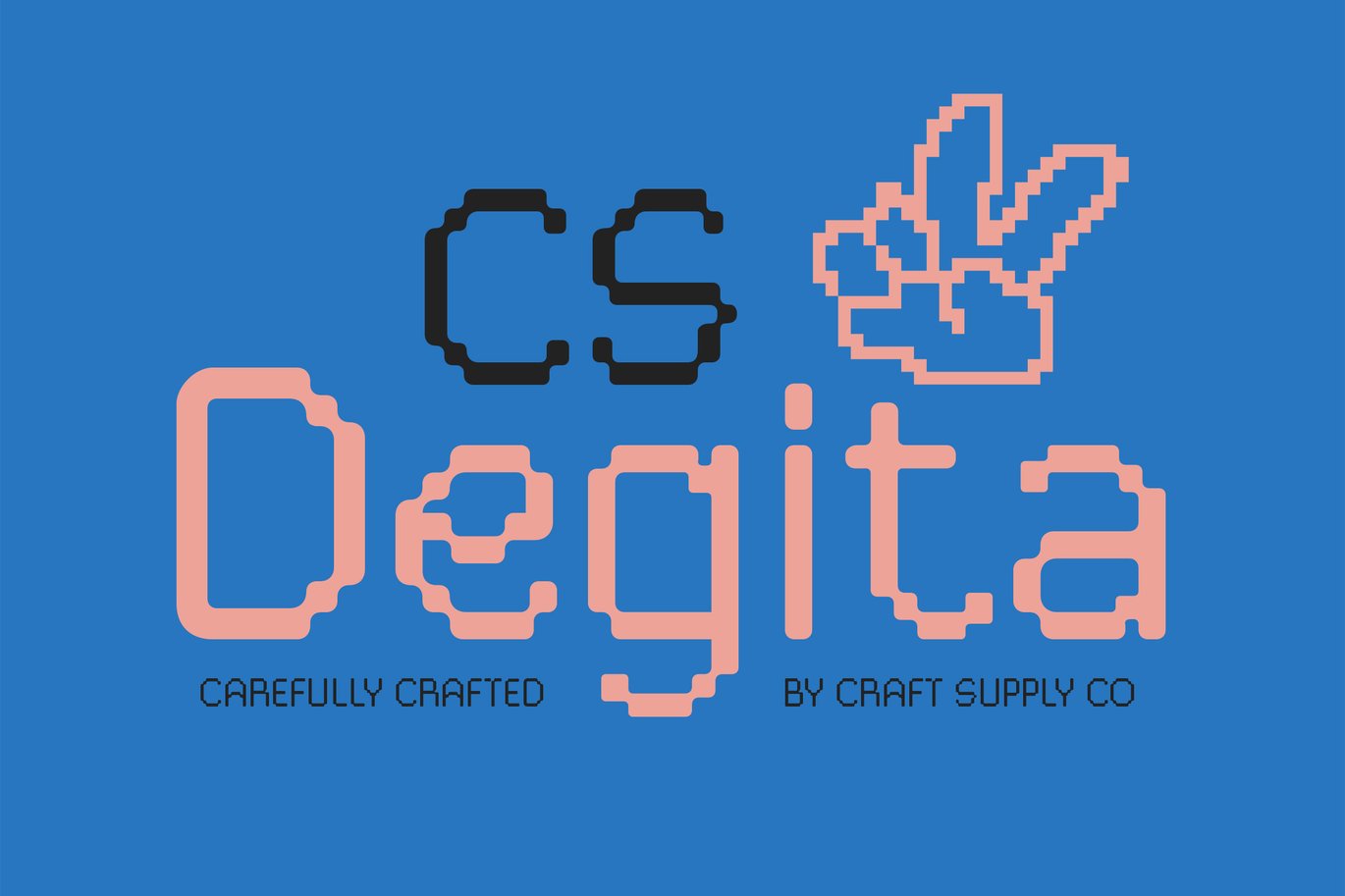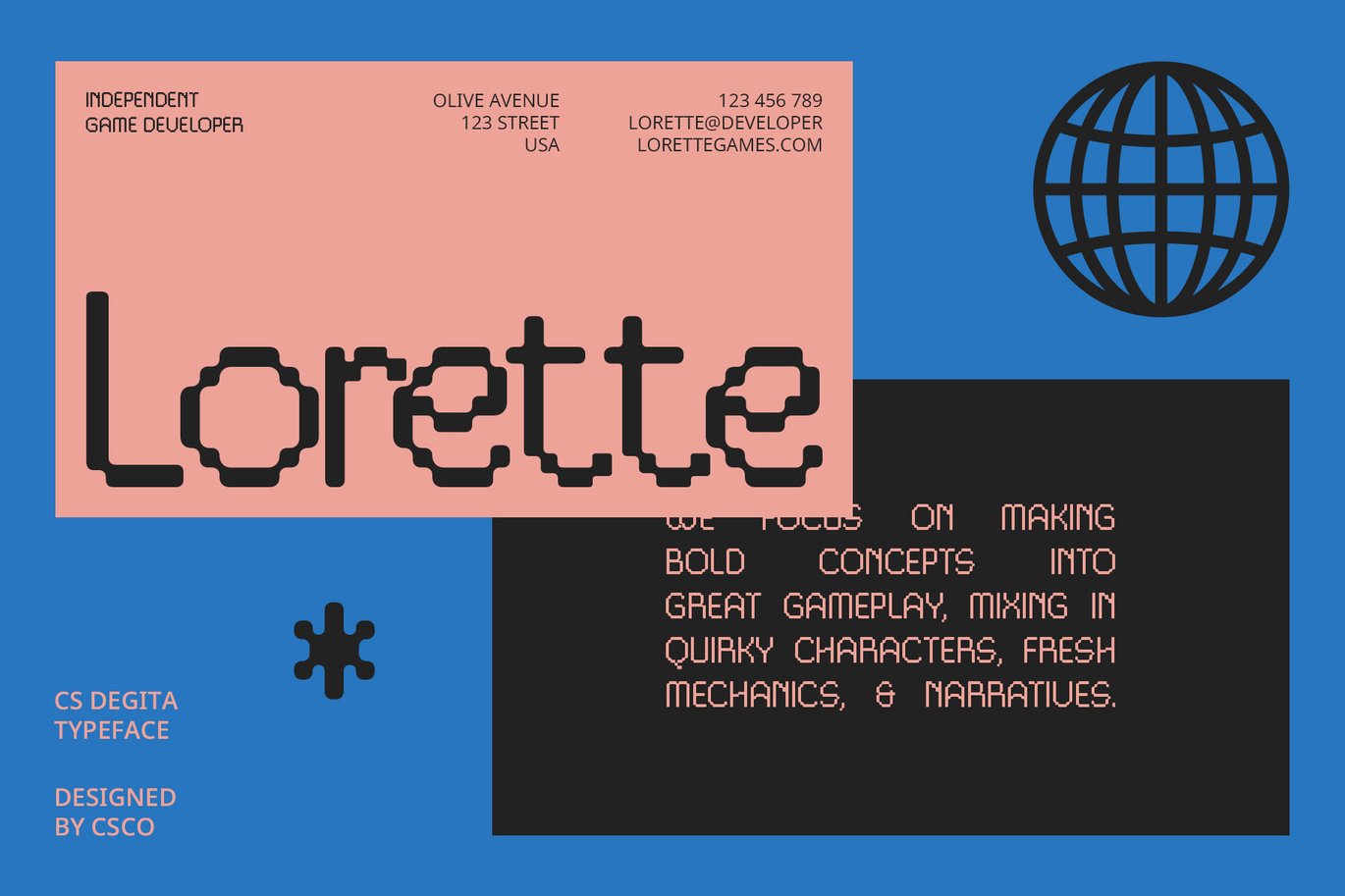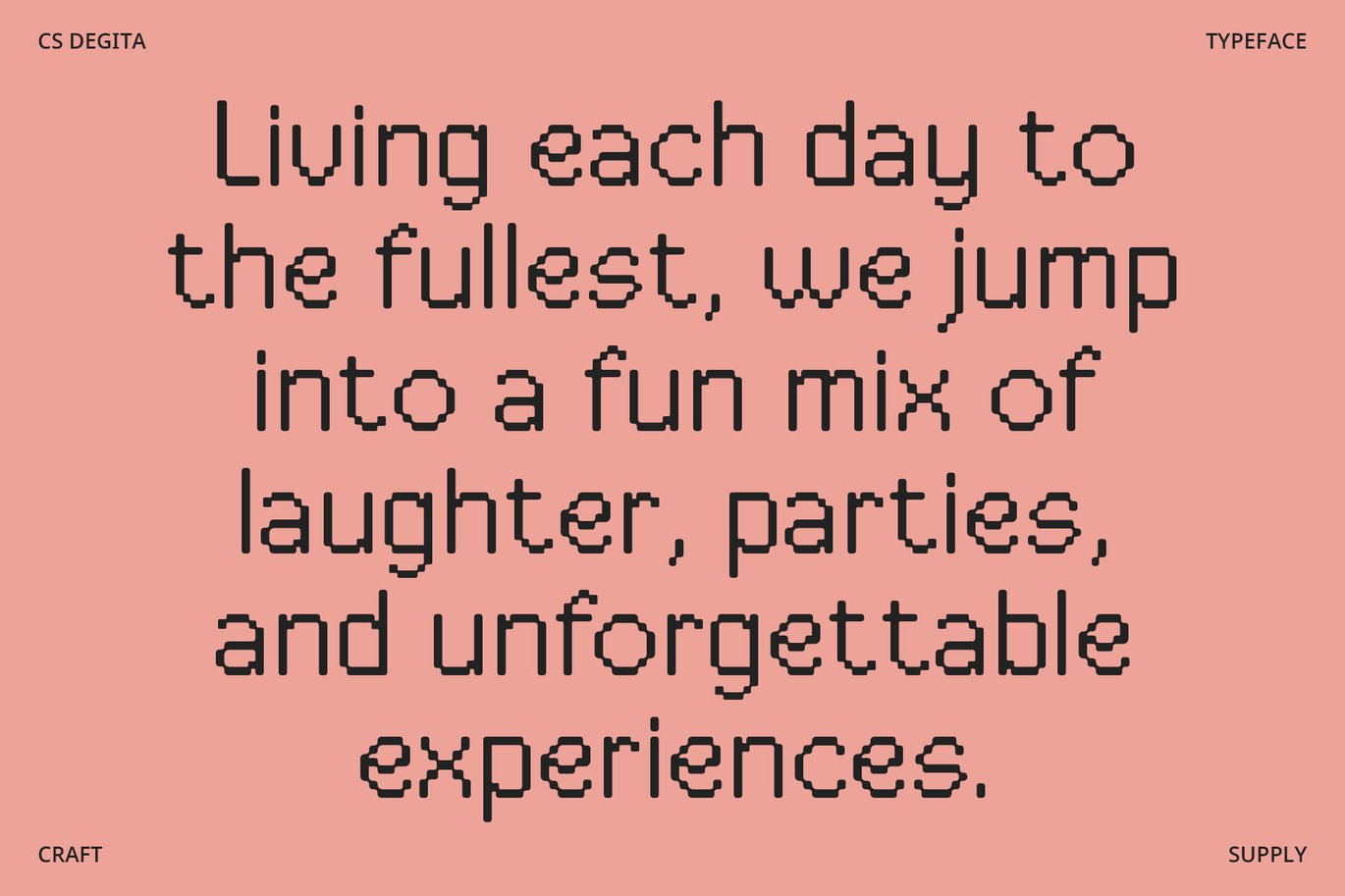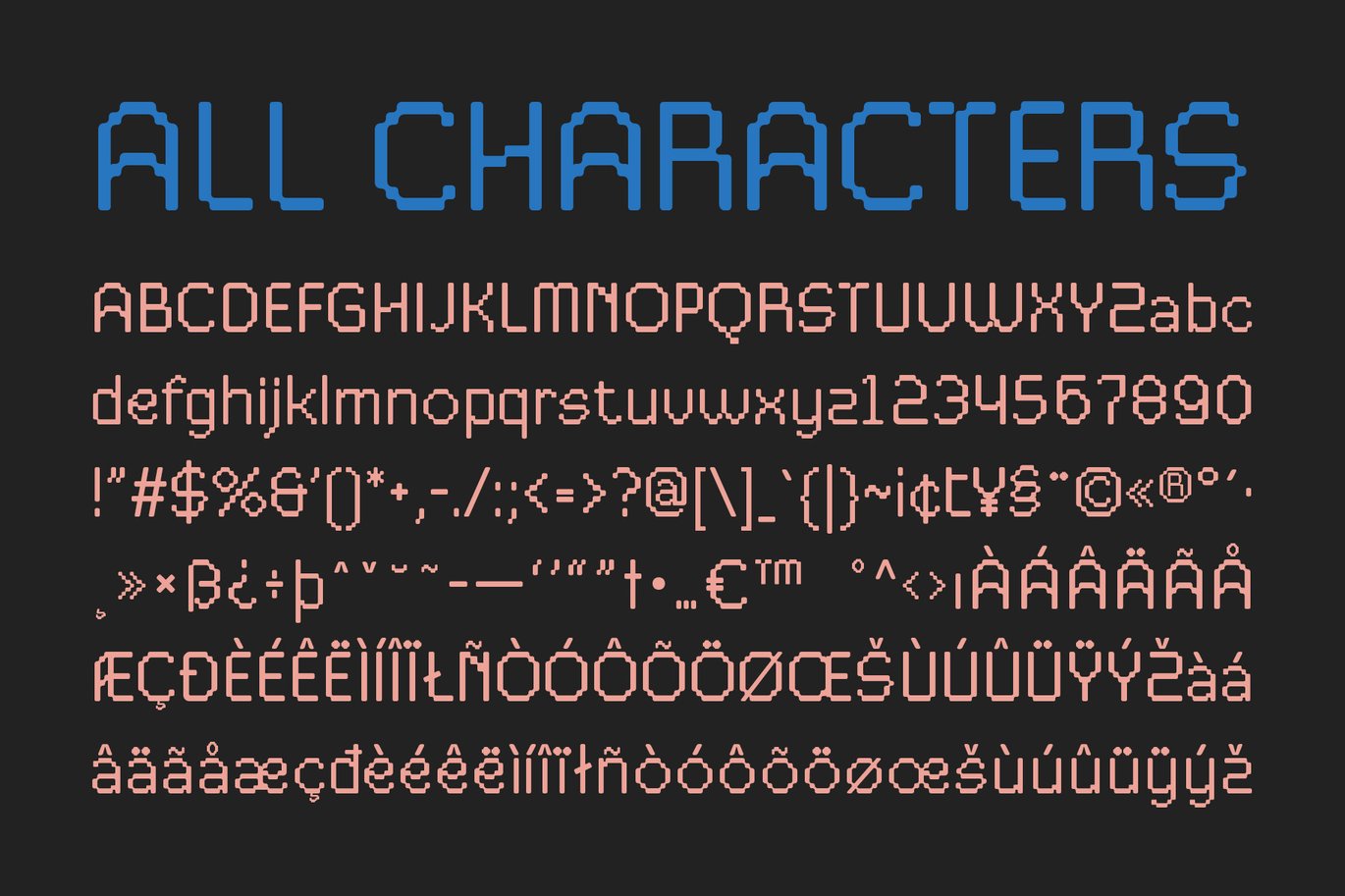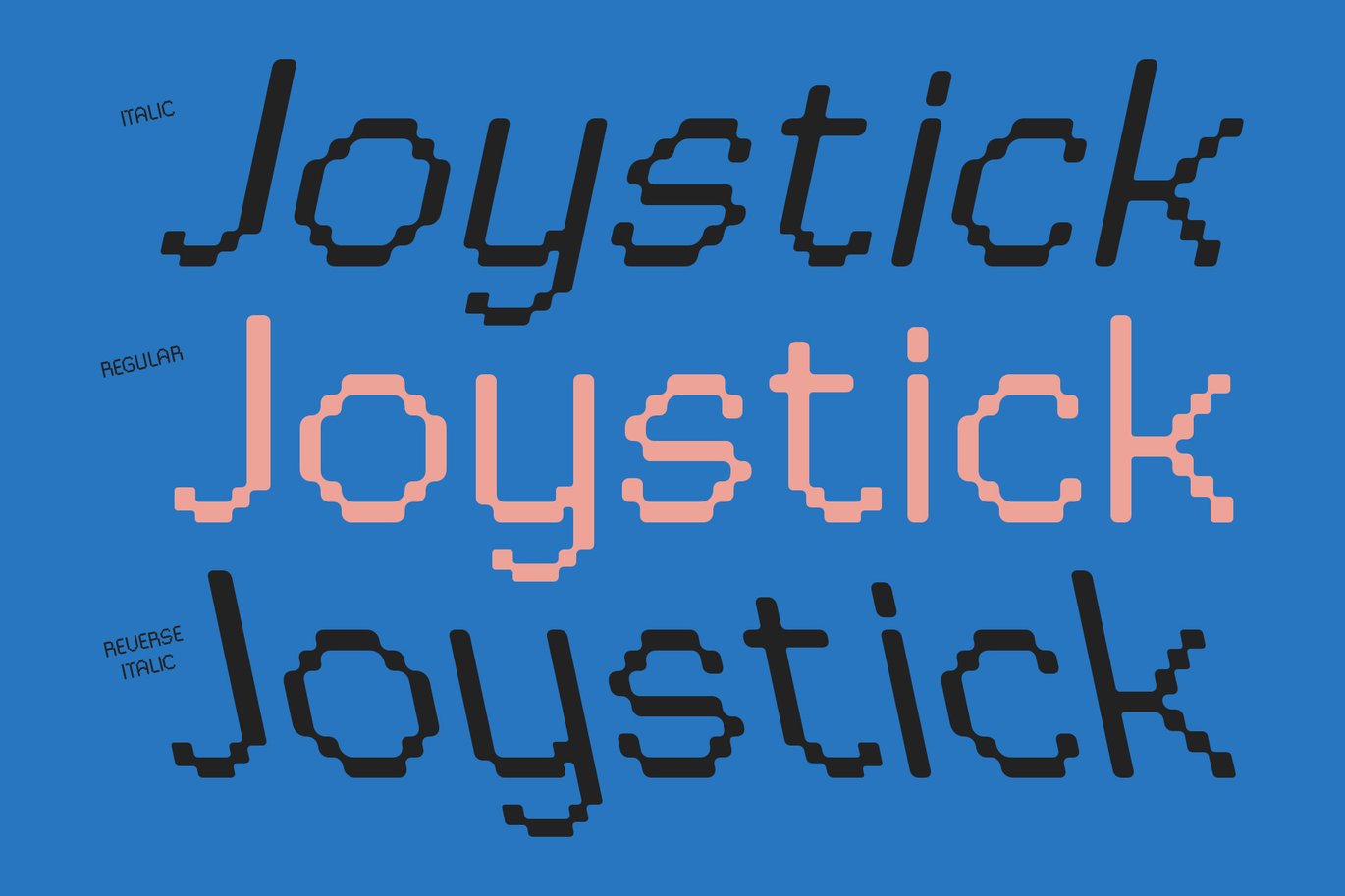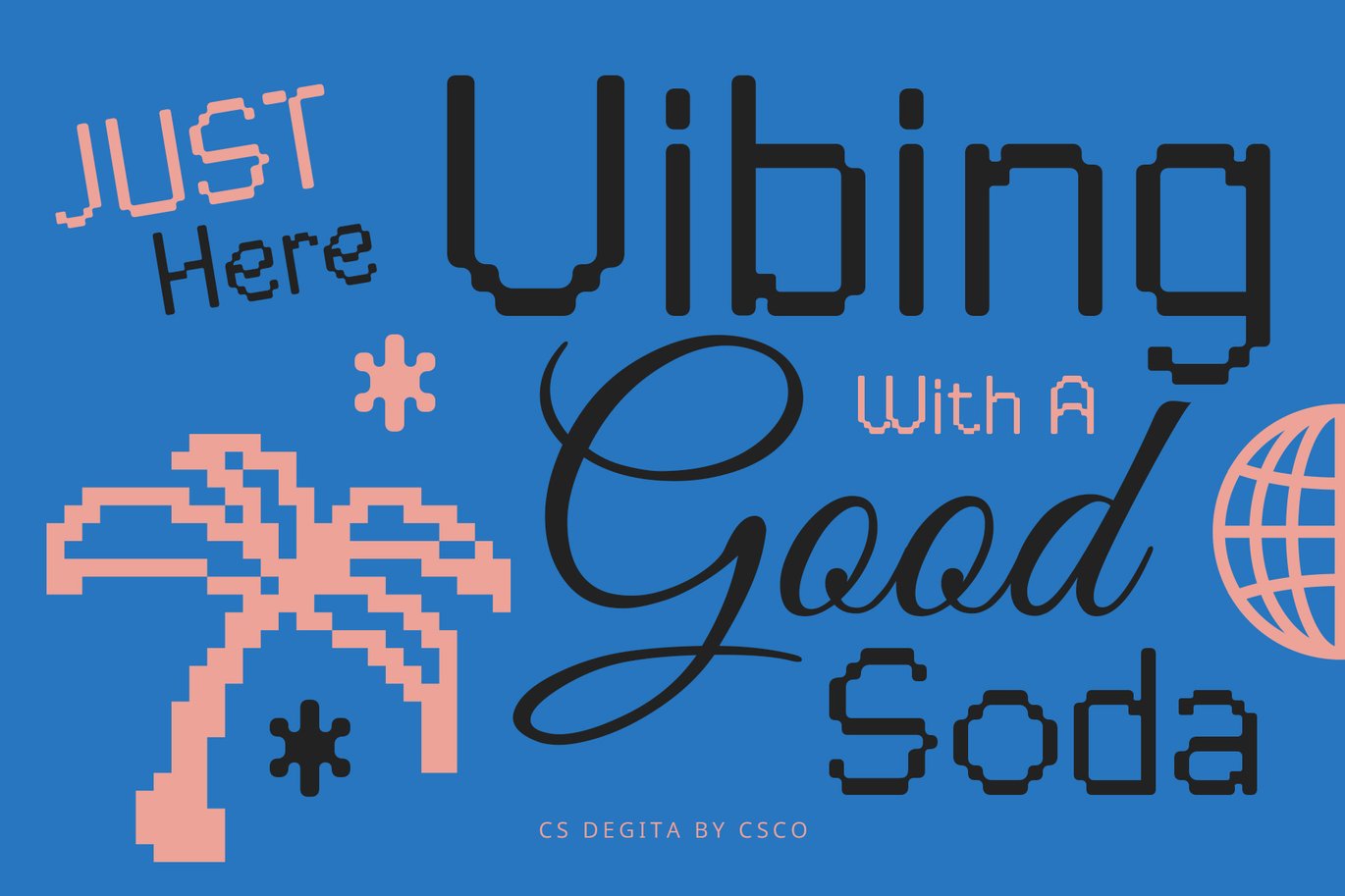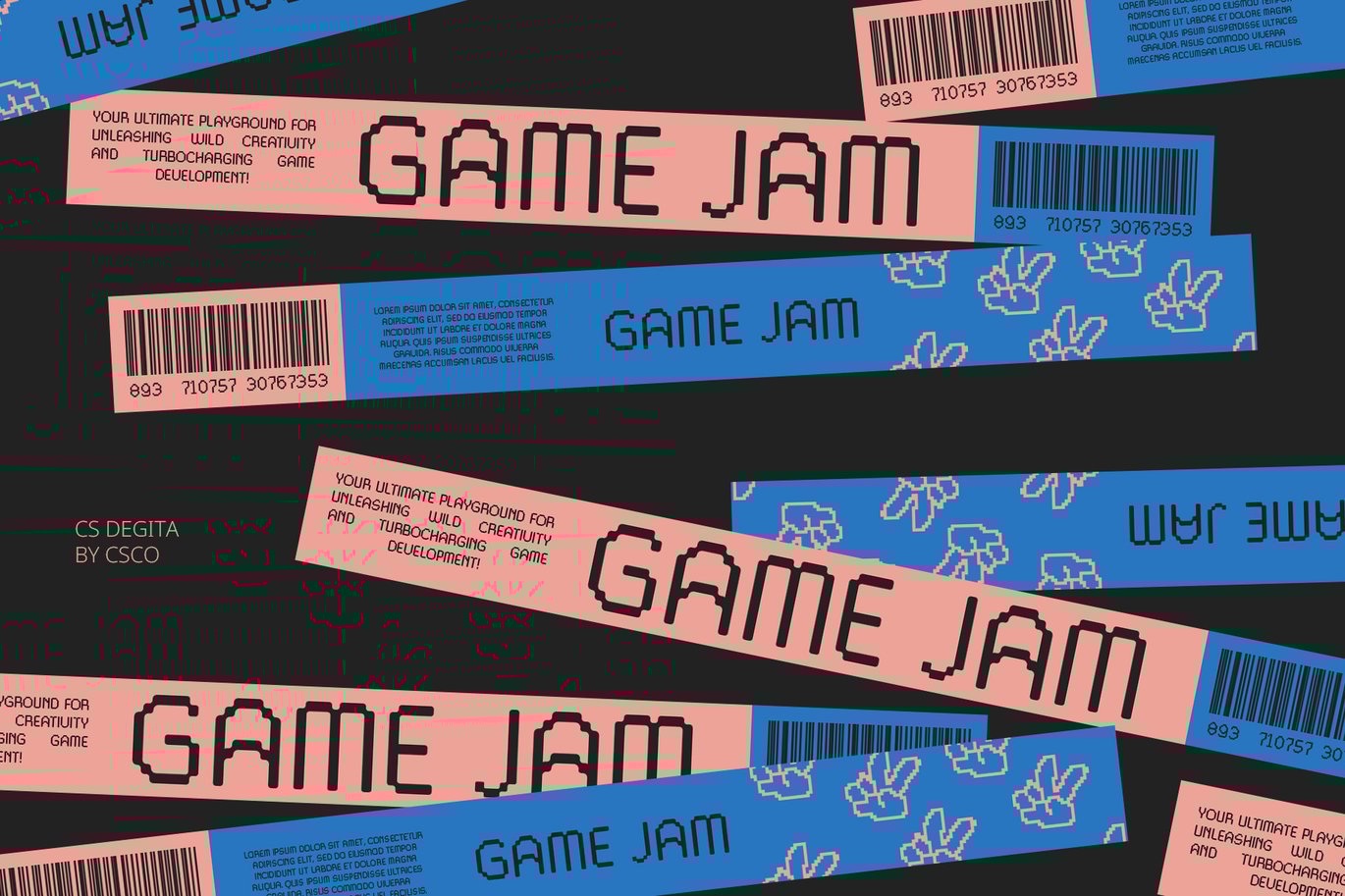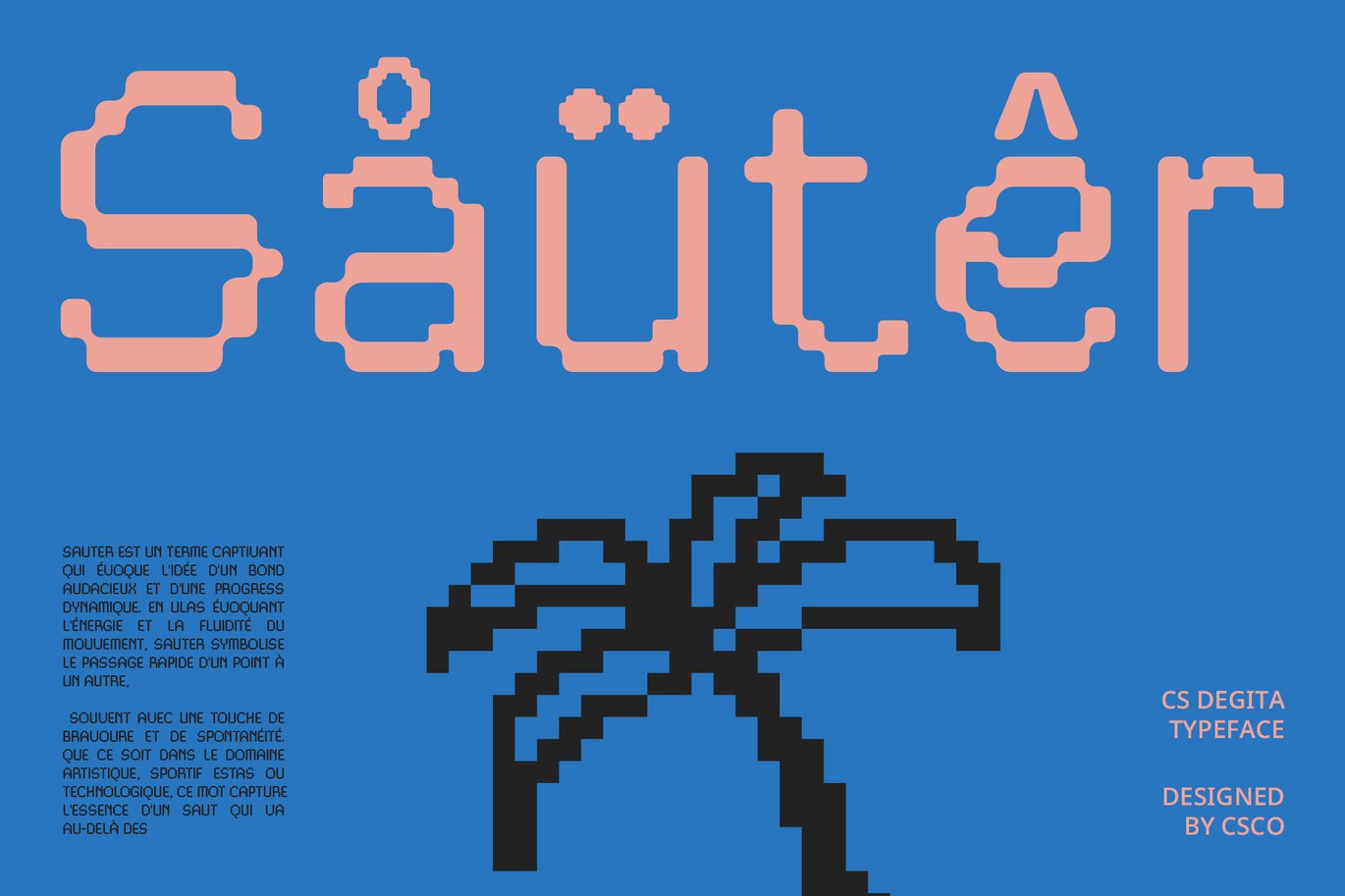
Degita – Pixel Font
CS Degita – Pixel Font: Retro Digital Charm with Modern Readability
Emulating Digital Grids with Precision
CS Degita is a pixelated display font designed to replicate the grid-like appearance of early digital screens. With sharp lines and angular corners, it captures the vintage monitor aesthetic of the 1980s and 1990s, offering a nostalgic nod to retro computing.
Perfect for Retro and Digital Designs
Ideal for small sizes, CS Degita maintains excellent readability even in compact formats. Its clean, minimalist style ensures clarity and functionality, making it an excellent choice for retro-themed graphics, digital media, and technology-focused branding.
Nostalgic Yet Functional
Combining a vintage aesthetic with modern readability, CS Degita provides a mechanical, structured look that emphasizes simplicity. This font is perfect for projects seeking to evoke a sense of nostalgia while ensuring that text remains clear and effective, blending retro charm with contemporary design sensibilities.